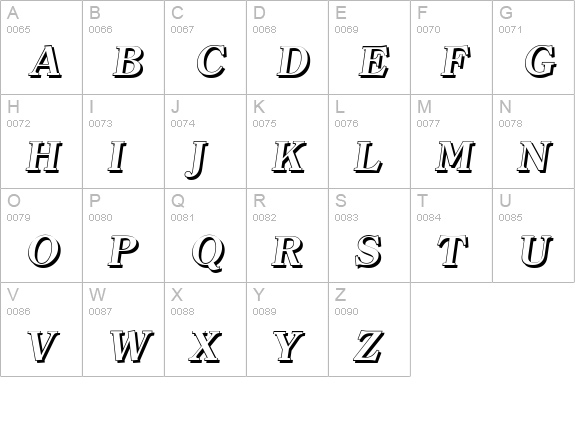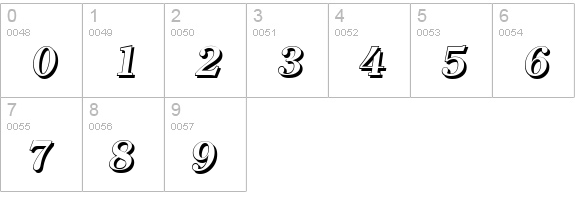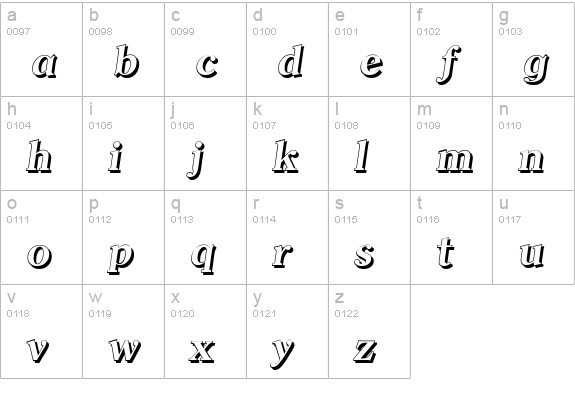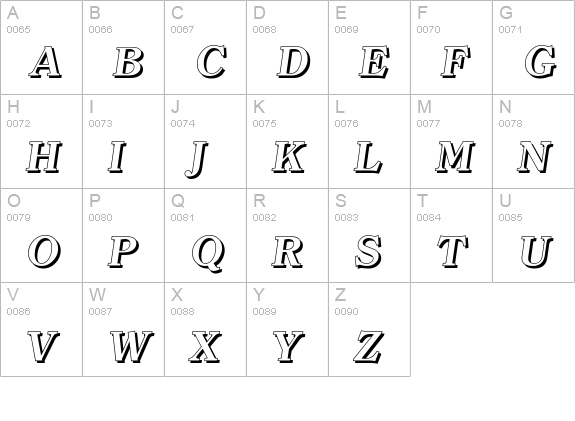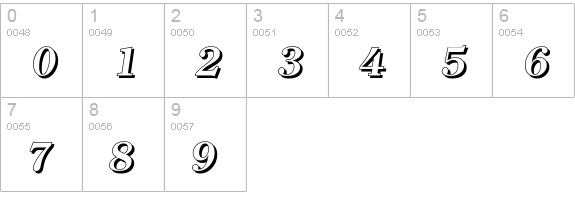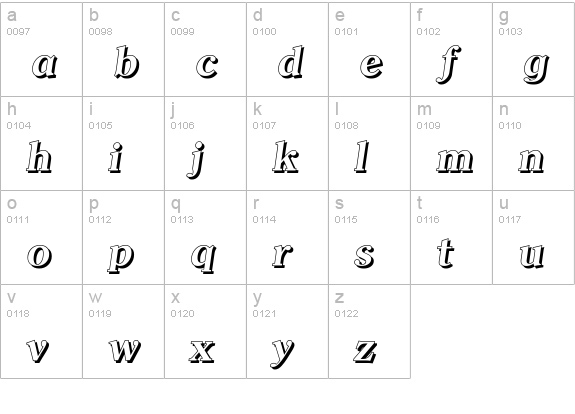
ClearfaceShadow-BoldItalic Font Details
ClearfaceShadow-BoldItalic is a striking and dynamic font that exudes a sense of boldness and sophistication. Its intricate design features sharp angles and distinct shadows that create a visually captivating effect. The italicized slant adds a touch of elegance and flair to any text, making it perfect for projects that require a modern and stylish touch. This font is versatile and can be used for a wide range of design purposes, from logos and headlines to posters and invitations. Its bold weight ensures that your message will stand out and make a lasting impression on viewers. Best of all, ClearfaceShadow-BoldItalic is available for free download at FontsMarket.com. Whether you're a professional designer or a hobbyist looking to elevate your projects, this font is a valuable addition to your typography collection. Download it now and unleash its creative potential in your next design project.